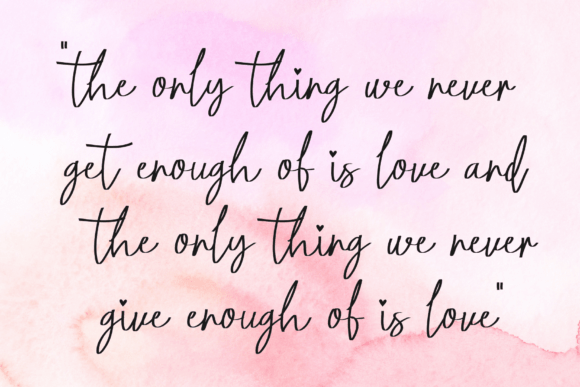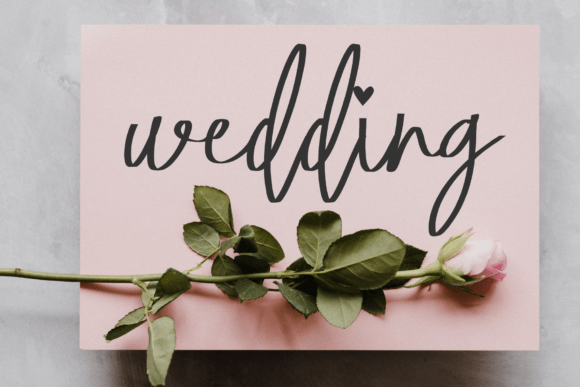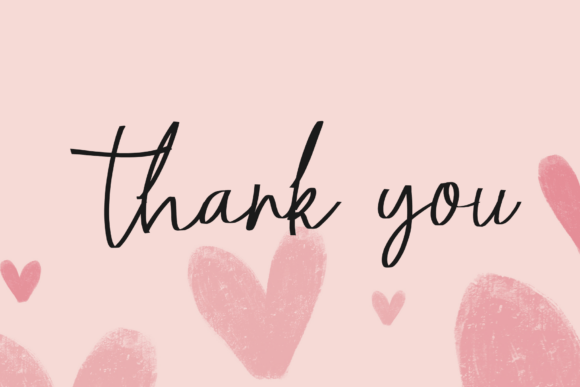
Introduction to Sensitive Font
Introducing Sensitive – a beautiful handwritten font with a soft, elegant, and romantic personality.
This stylish script font features smooth curves and charming heart accents that make it perfect for love-themed designs and feminine projects .
Key Features of Sensitive Font
Why Choose Sensitive Font?
Sensitive Font offers exceptional quality and versatility, making it a valuable addition to your design toolkit. Whether you’re creating for personal projects or commercial use, Sensitive Font delivers professional results.